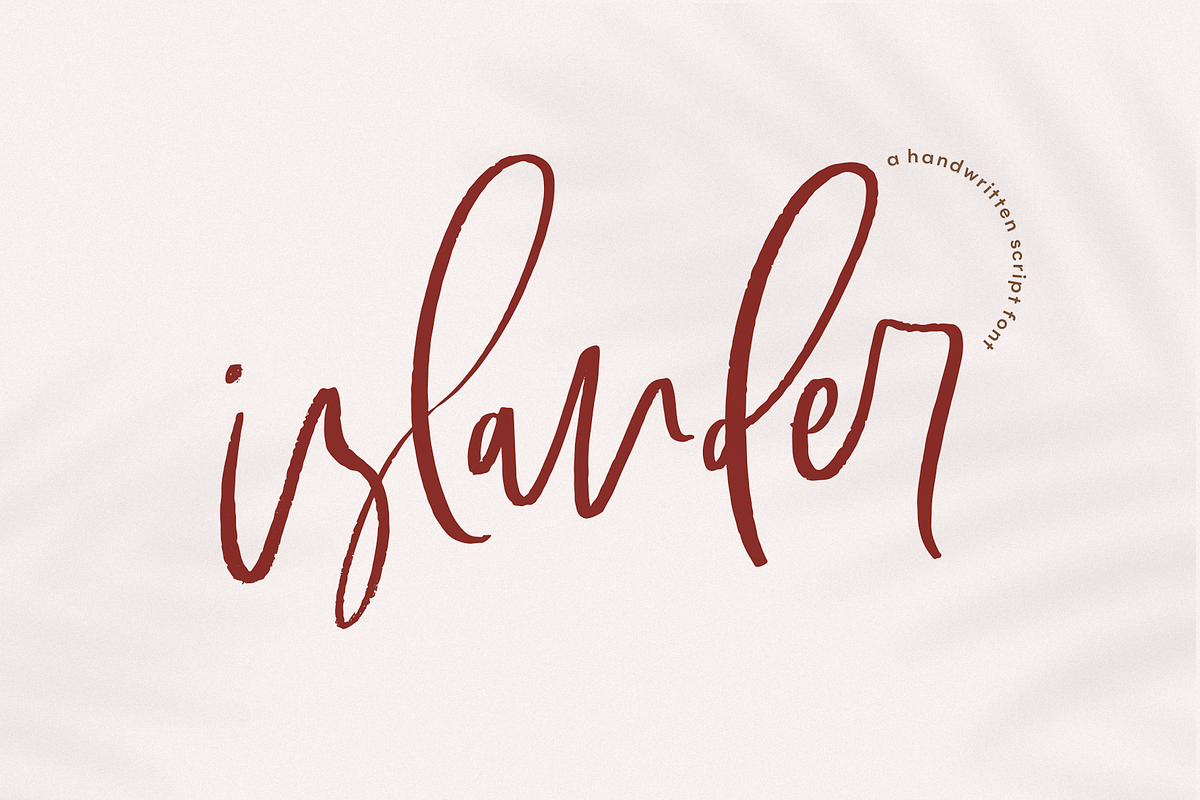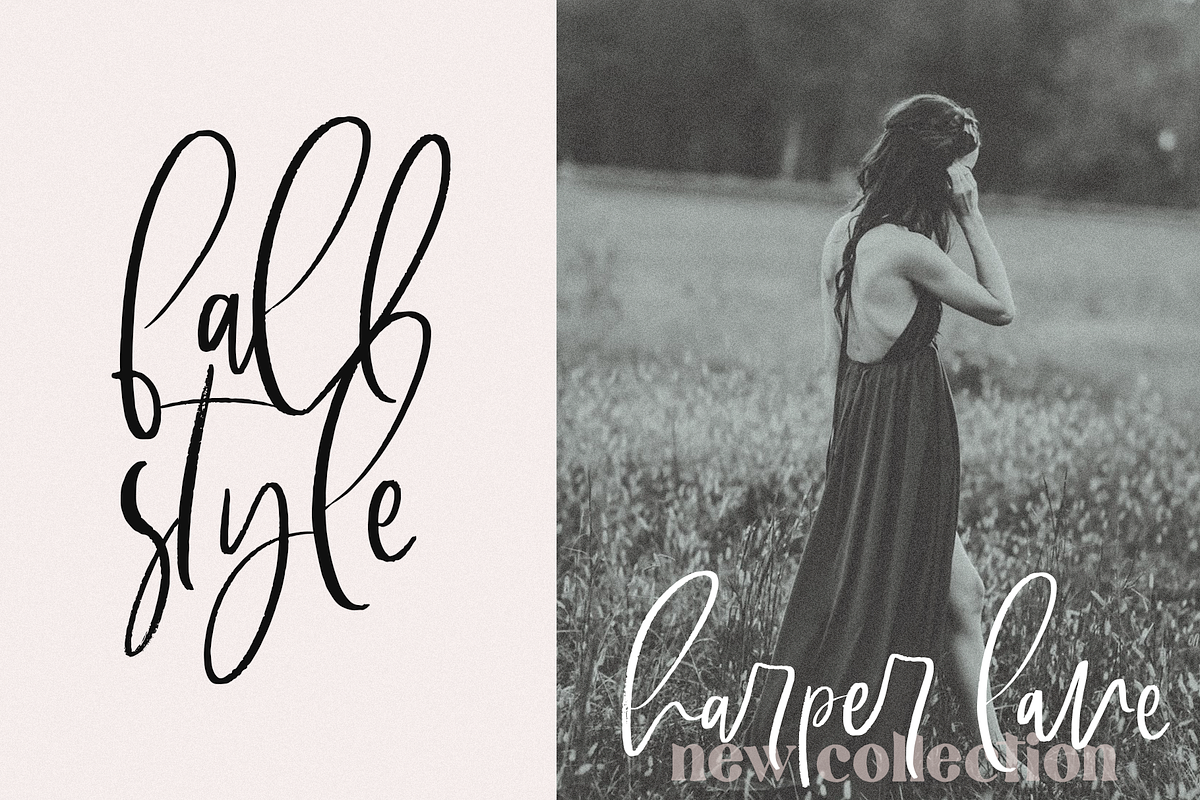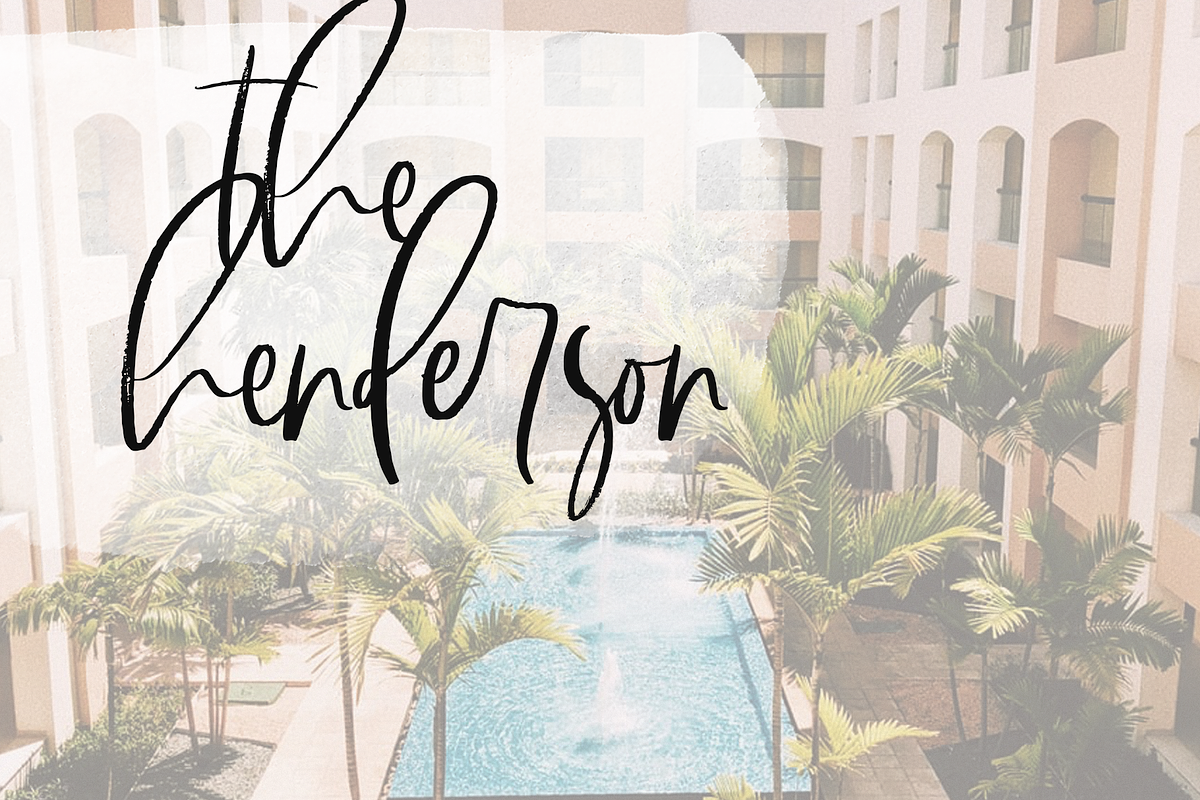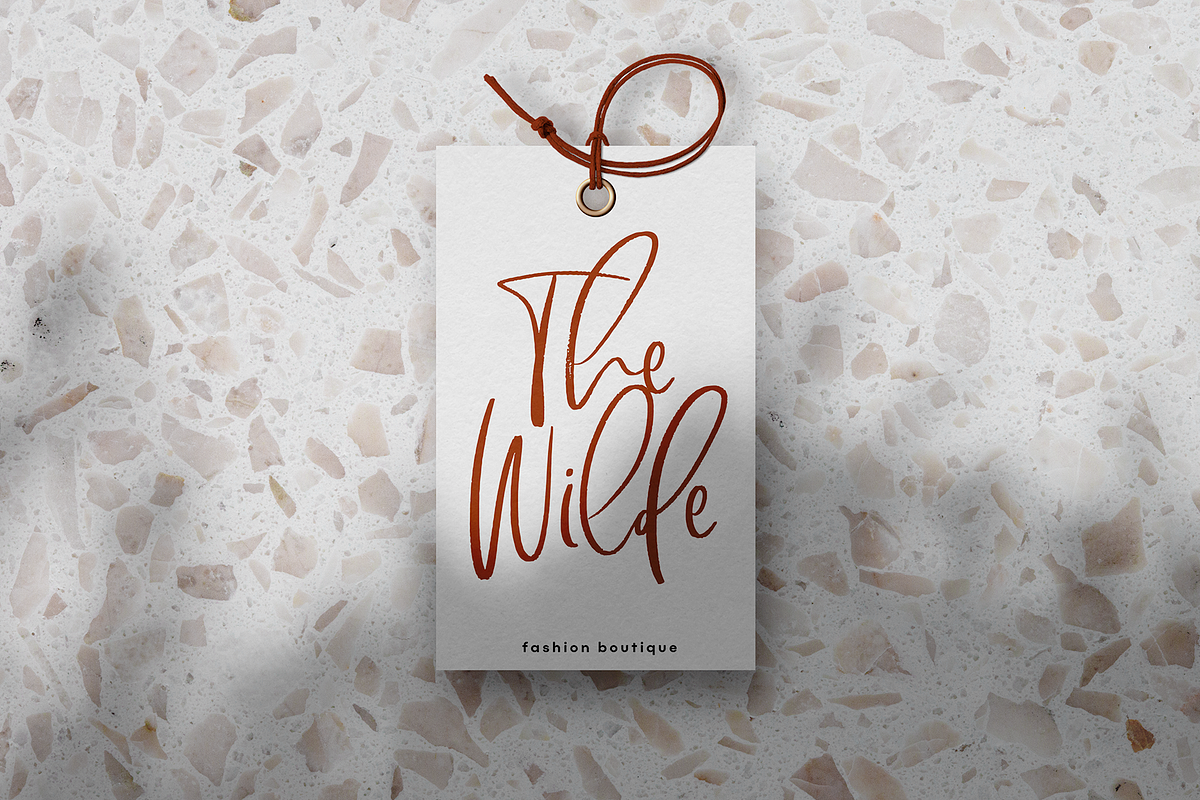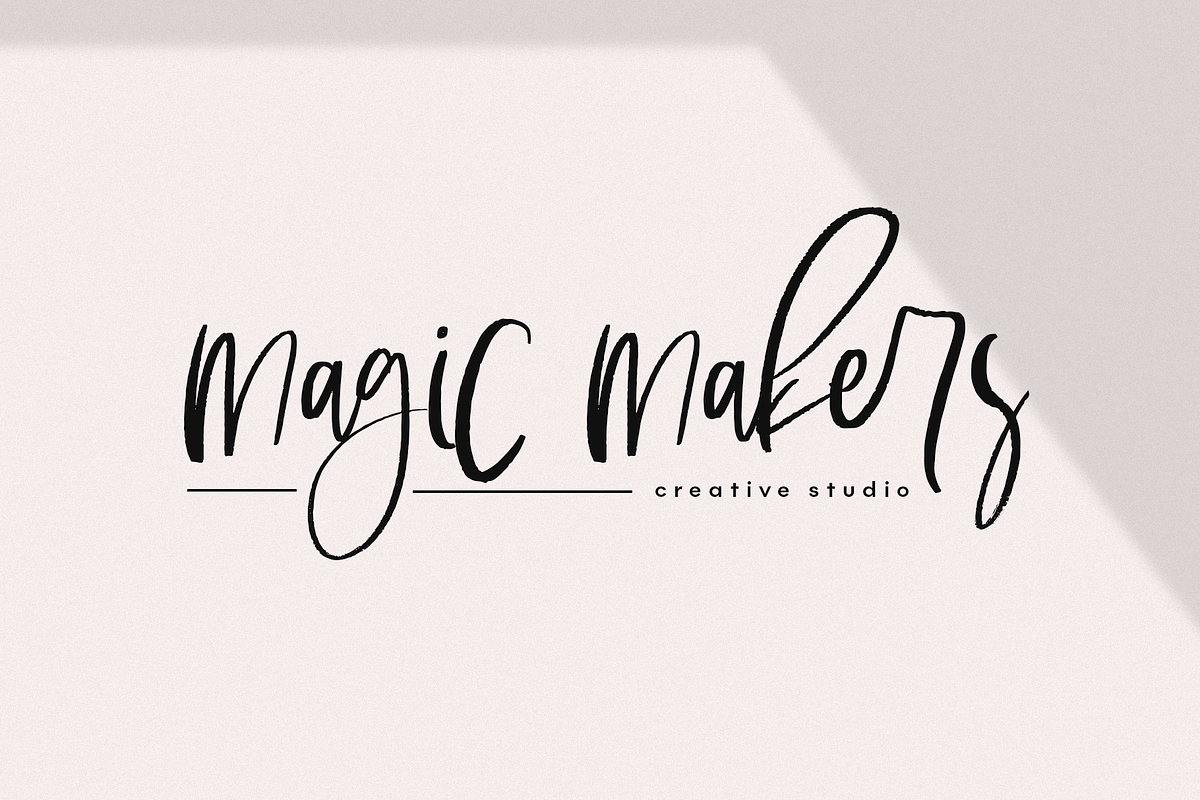
Islander | Handwritten Script Font
Islander is a carefree, handwritten script font. This font has a fun bohemian vibe.
This font is perfect for modern projects, headings, blogs, logos, brandings, invitations, and more!
Accent characters are not included at this time.